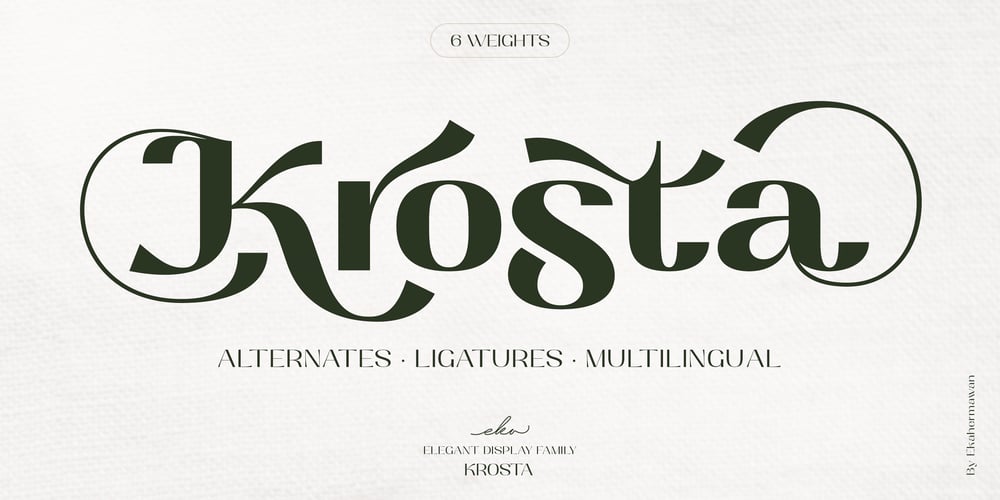
Krosta Font Family was designed by Putu Eka Hermawan and published by Ekahermawan. Krosta contains 7 styles and family package options. Krosta is an unique display family that consists of 6 weights from ExtraLight to ExtraBold. All the alternates and ligatures characters of Krosta are specially designed to make your typography design result looks more unique and attractive. Krosta is suitable for many different projects such as logo design, wedding, branding, poster, magazines, labels, merchandise, invitation, presentation, advertising and so much more!FEATURES:OpenType supportPlayful to use (with ligatures and alternates options)Multilingual supportPUA EncodedIf you need support or more information about this item, please kindly contact me: ekahermawanputu@gmail.comThank you so much…I really hope you enjoy when using it!